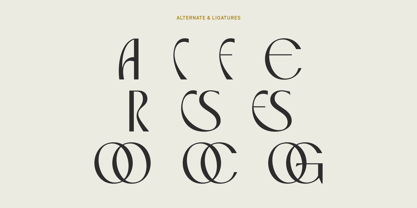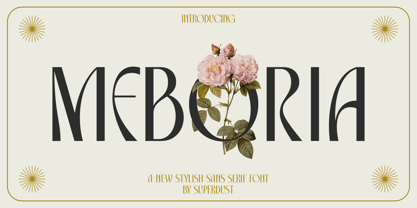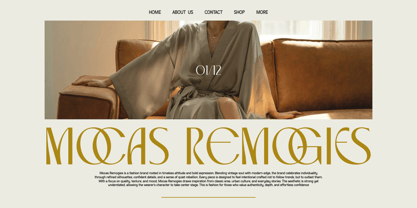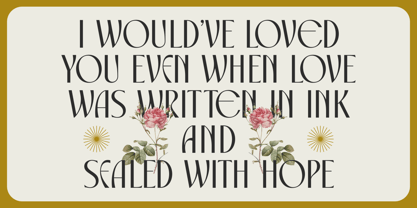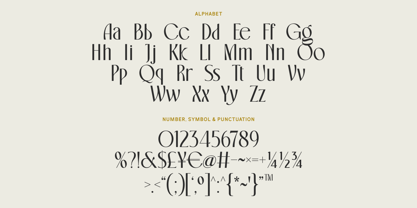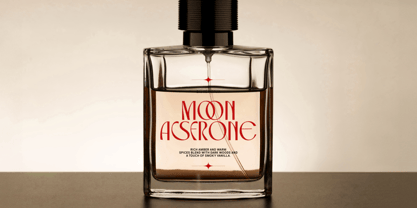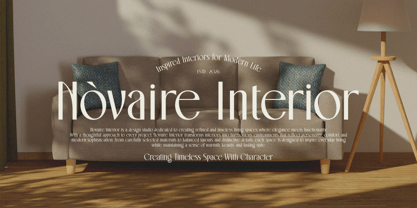
Meboria
by Super Dust
The Meboria Font Family was designed by Tri Iriyanto Wibowo and published by Super Dust. Meboria contains 1 styles.
Meboria is a stylish sans-serif font designed to bring a refined balance of modern elegance and contemporary simplicity. With its clean lines, distinctive letterforms, and sophisticated character, Meboria offers a fresh visual identity that feels both professional and fashionable. Perfect for branding, editorial layouts, luxury packaging, social media graphics, logos, and creative projects, this typeface delivers exceptional versatility while maintaining a unique personality. Its carefully crafted details create a polished appearance that enhances readability without sacrificing style. Whether used for bold headlines or elegant visual compositions, Meboria adds confidence, clarity, and a modern aesthetic that helps every design stand out with timeless appeal.
Designers: Tri Iriyanto Wibowo
Foundry: Super Dust